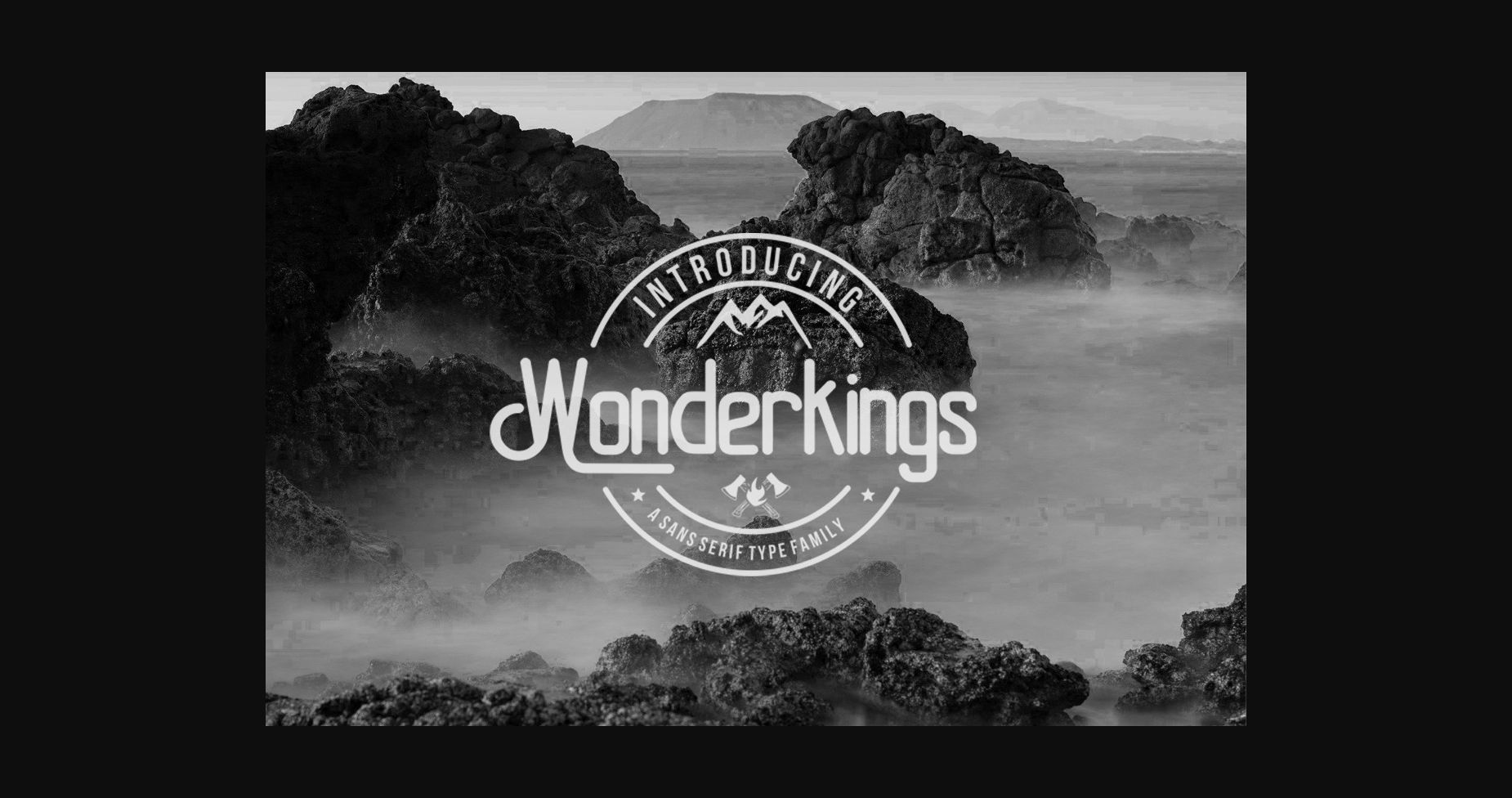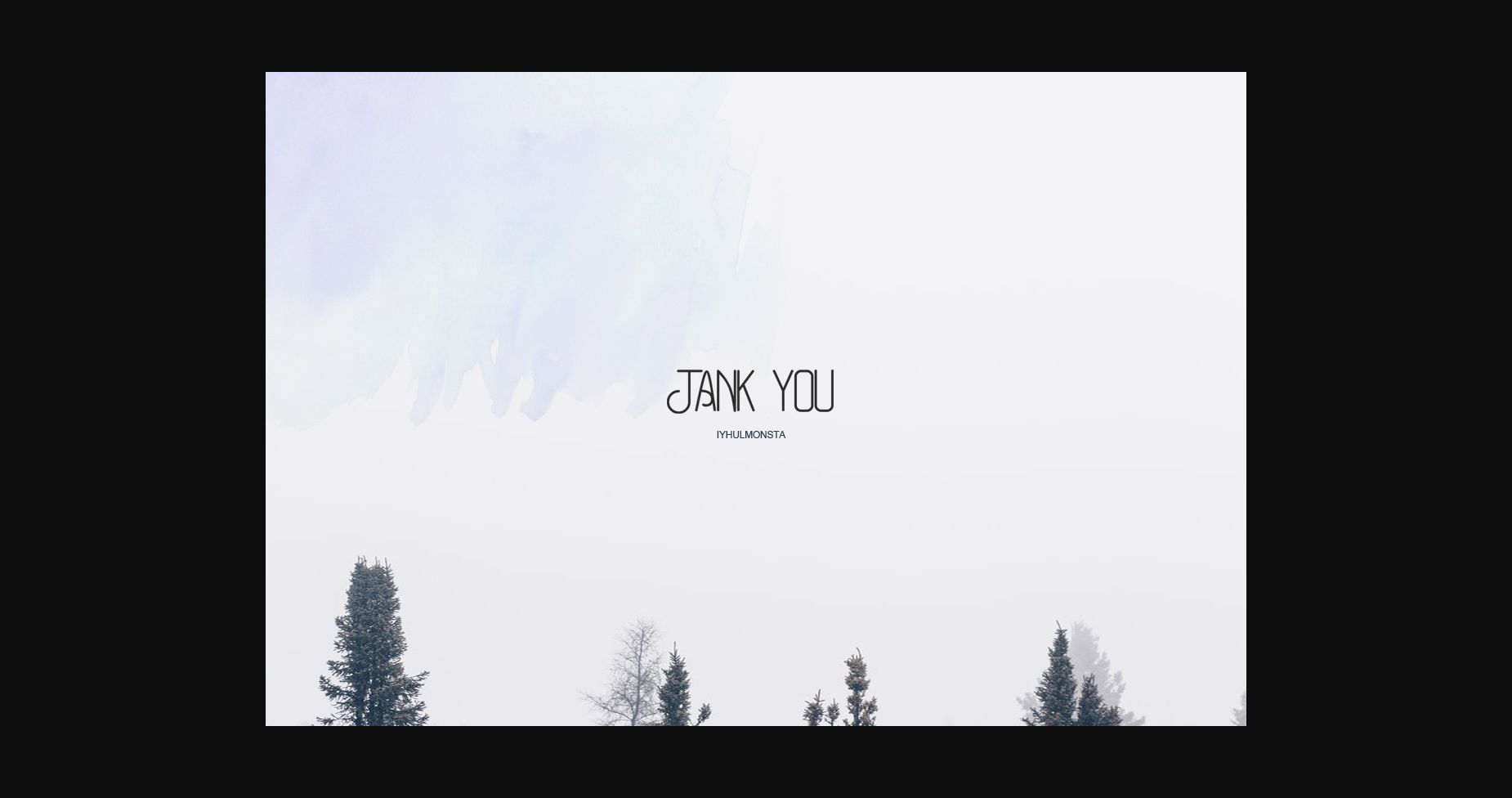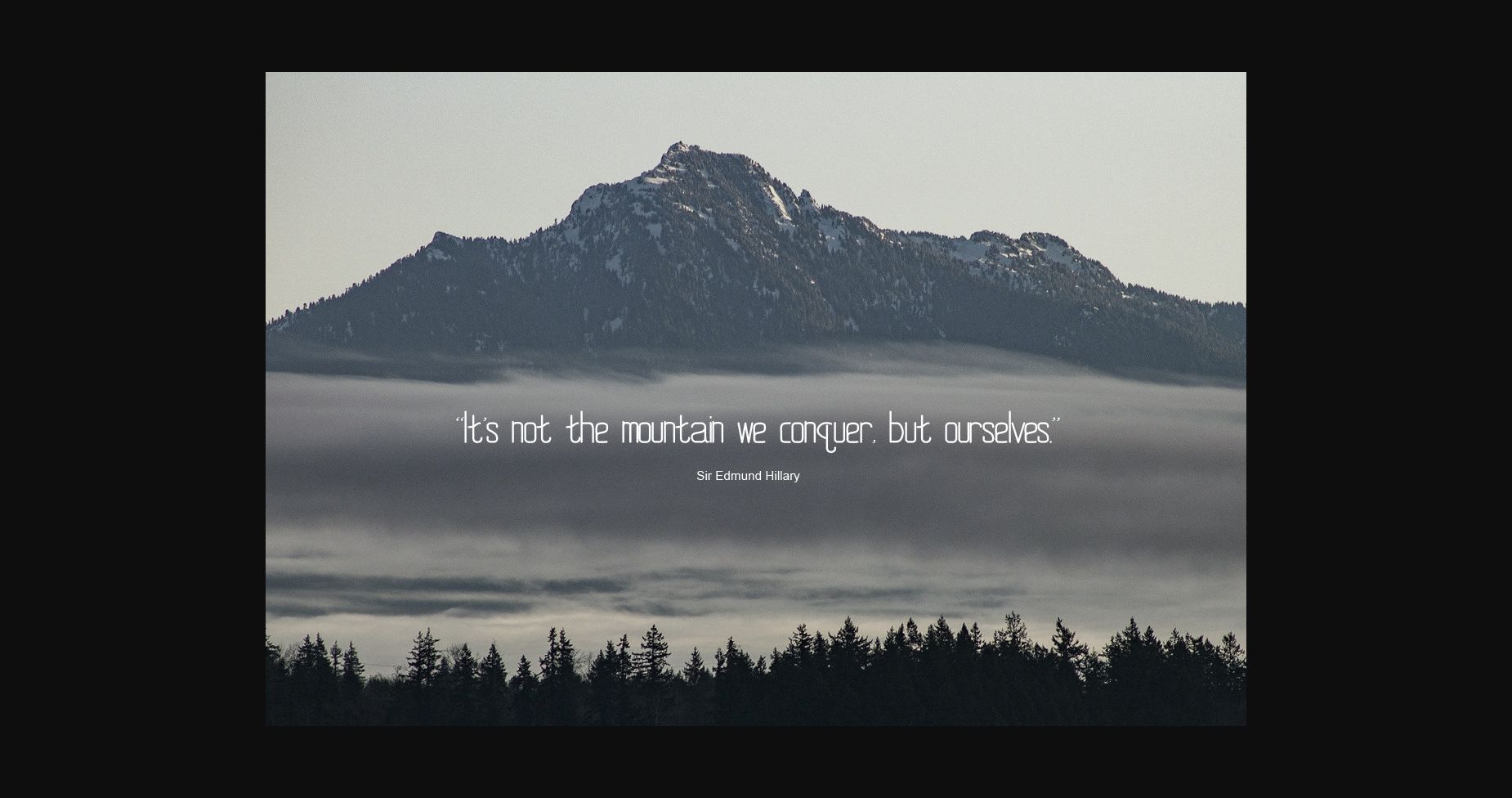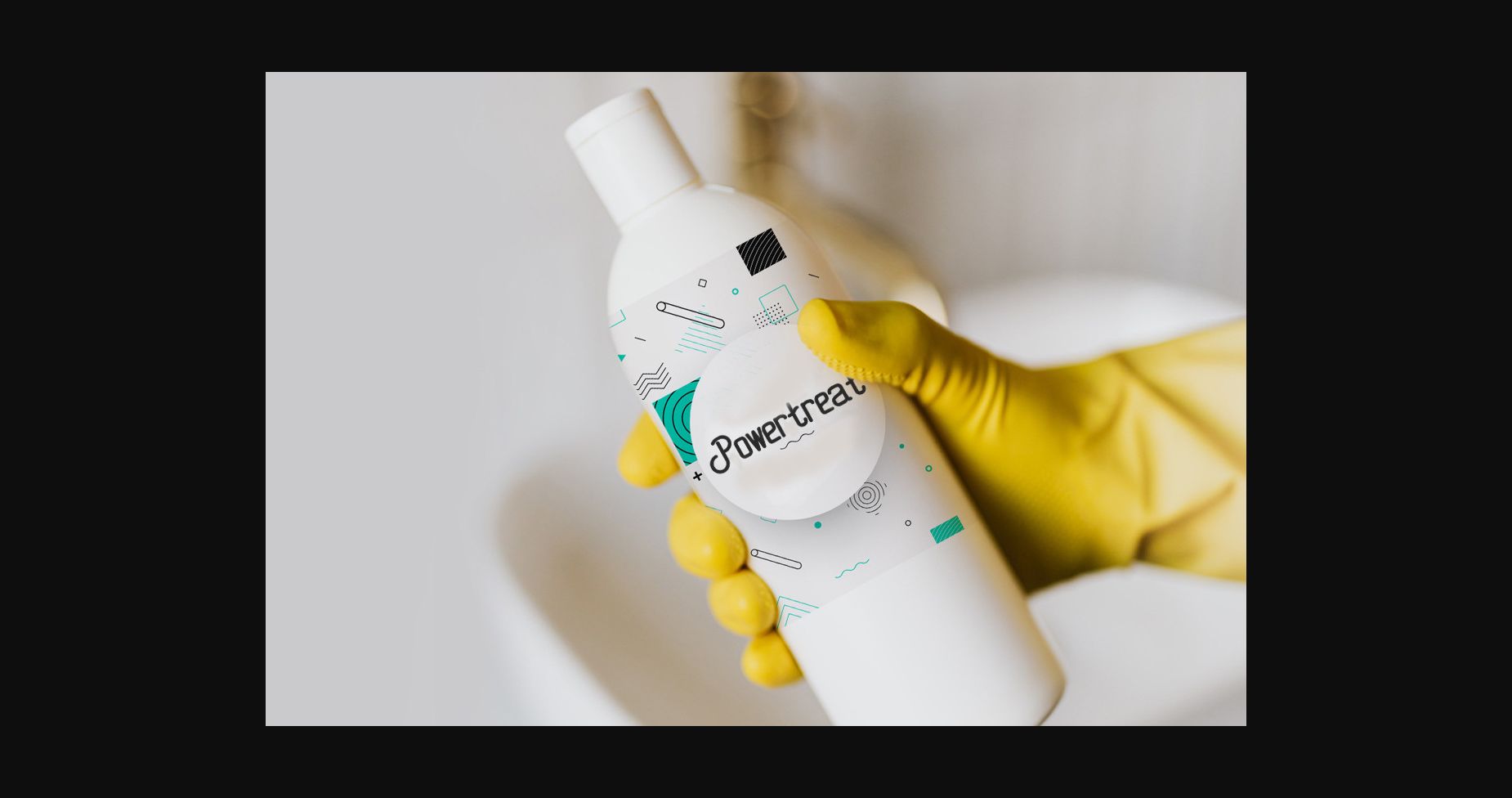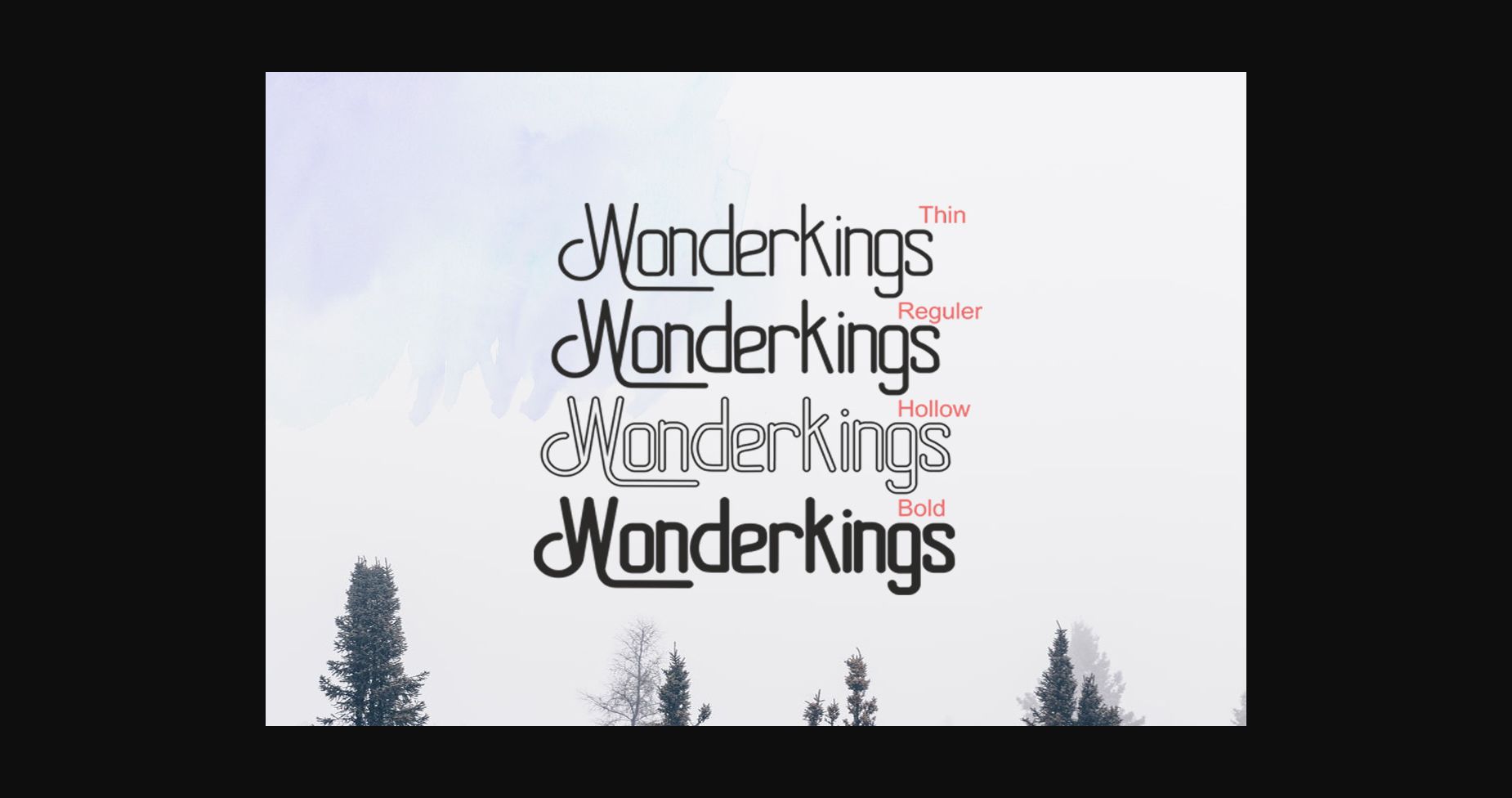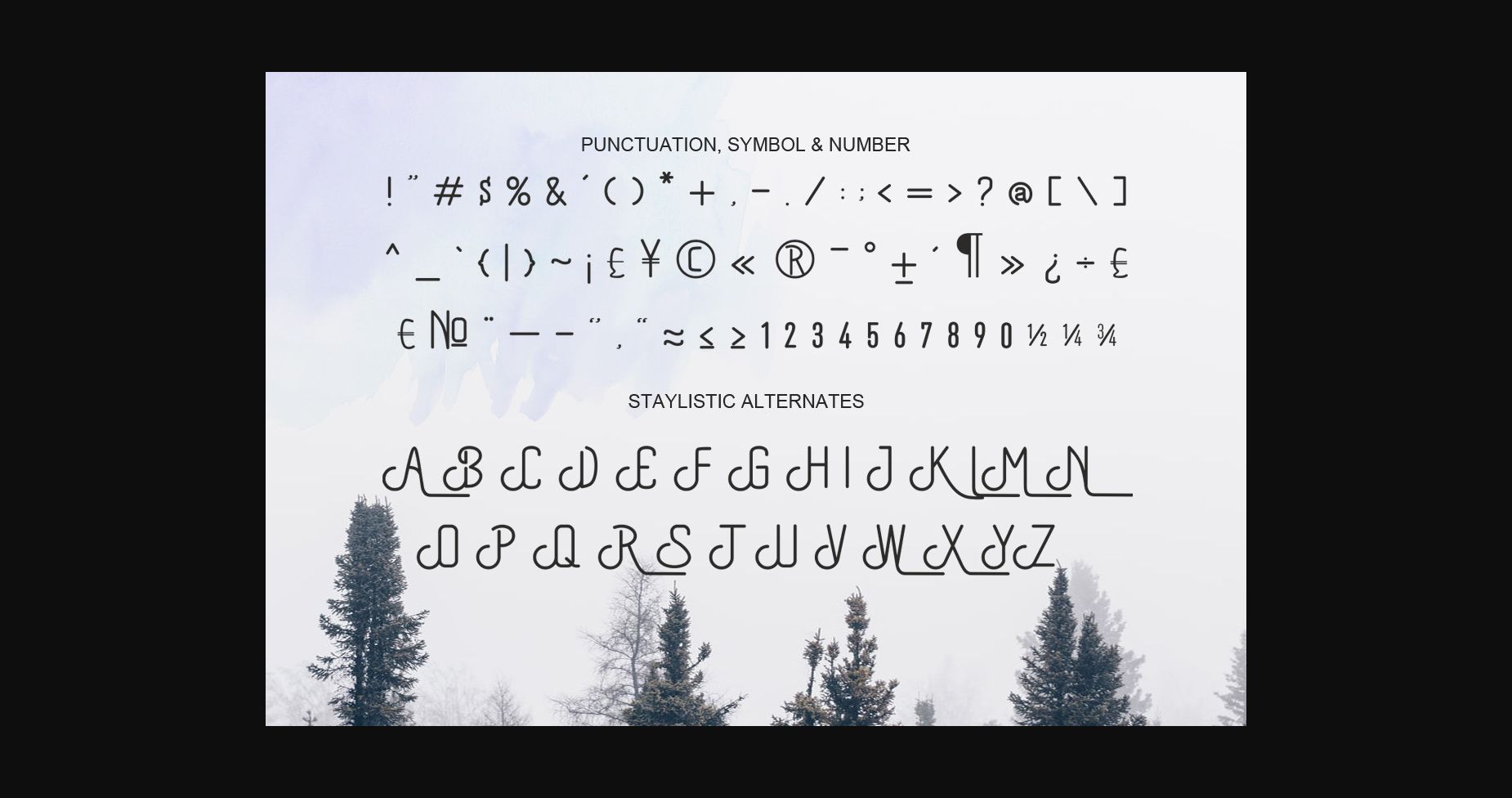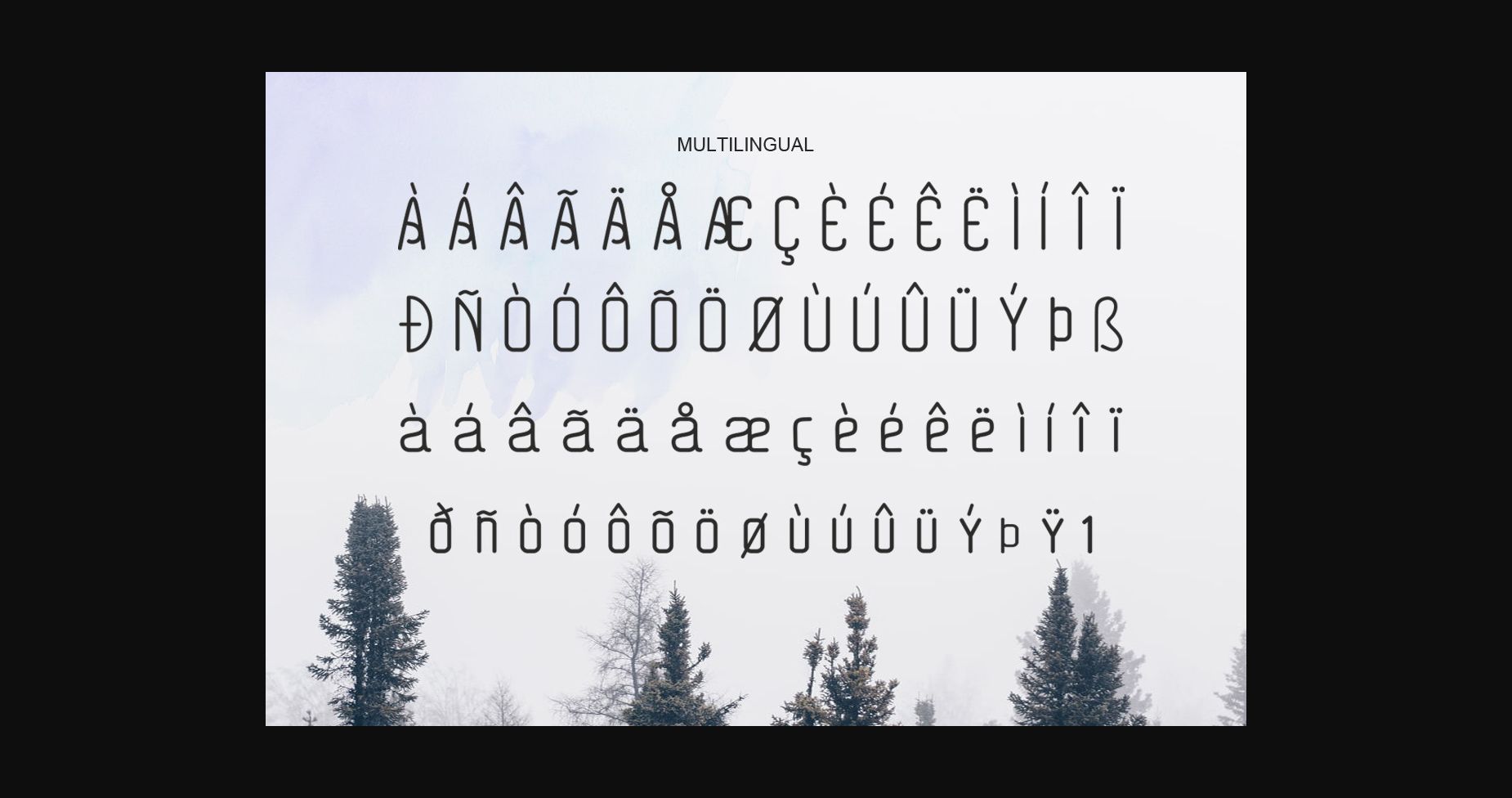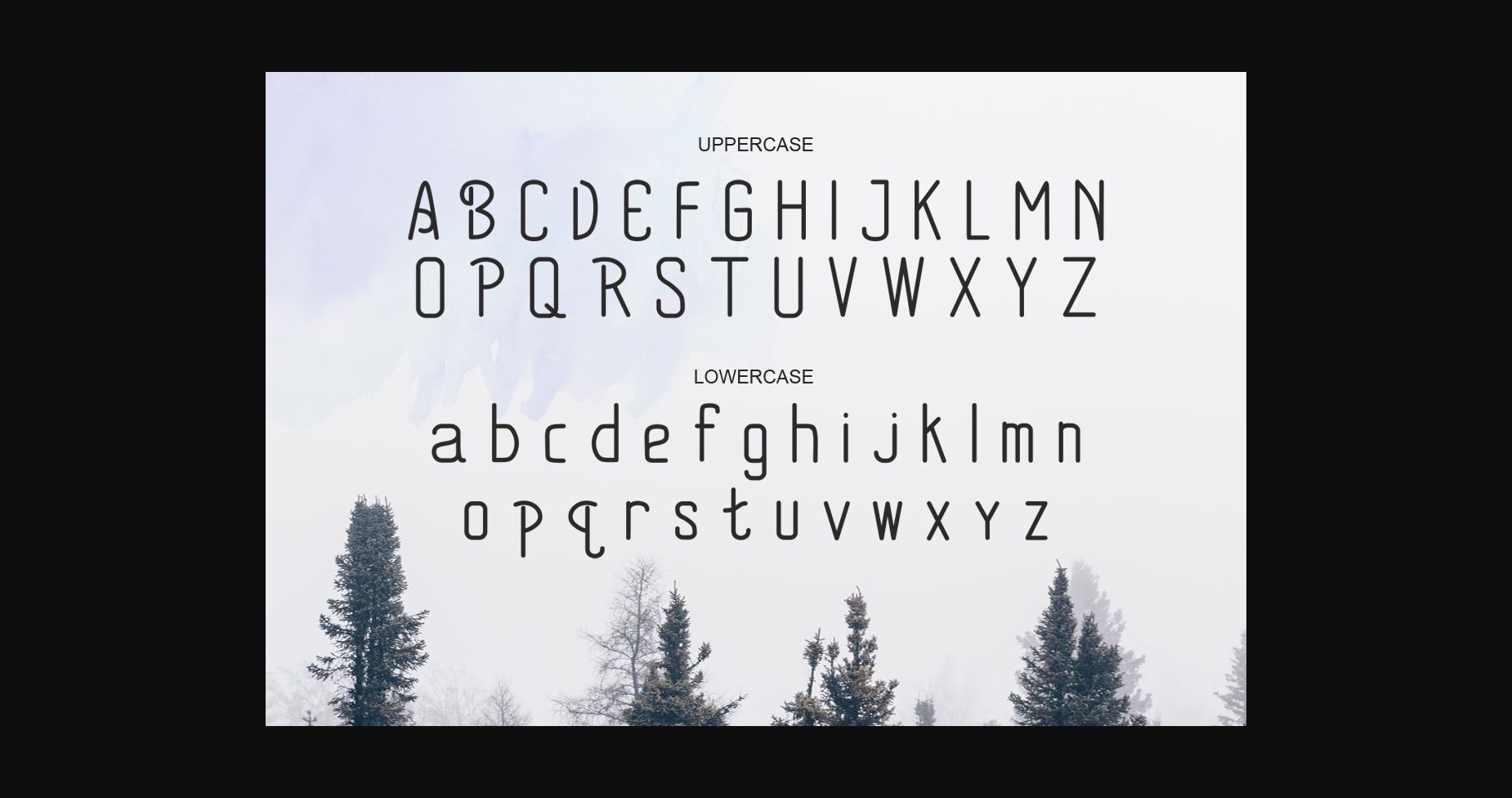
Wonderkings Font
About Wonderkings Font
Wonderkings is a clean and vintage styled sans serif font. It can easily be matched to an incredibly large set of projects, so add it to your creative ideas and notice how it makes them stand out!